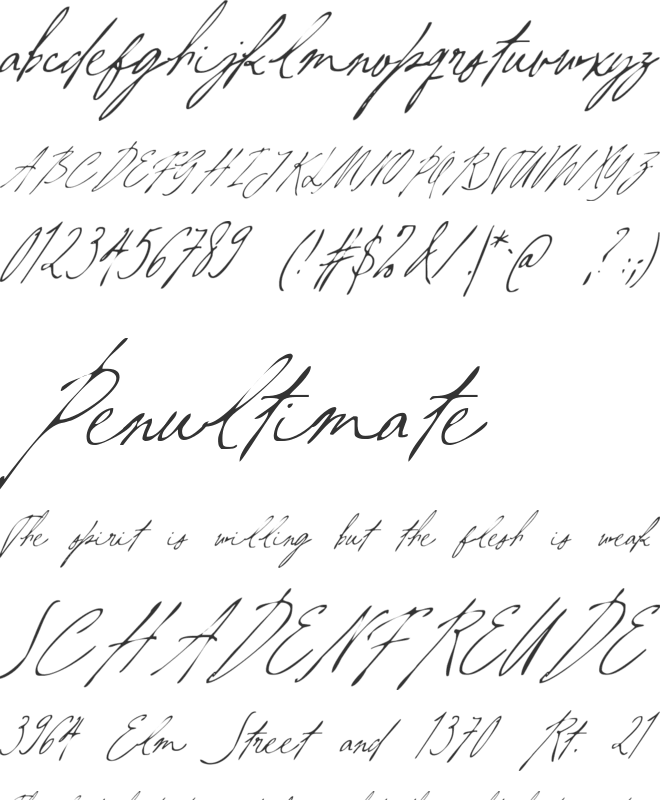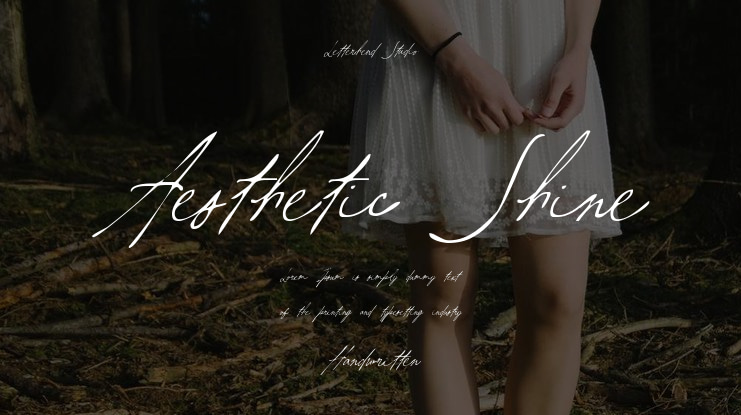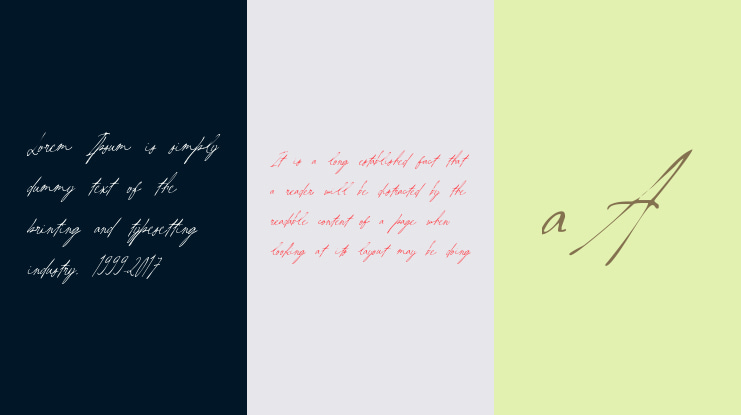
Aesthetic Shine Font Family
Letterhend Studio
Aesthetic Shine feels like handwriting captured in a quiet, beautiful moment—slender, flowing, and naturally expressive with a touch of raw romance. Its sweeping capitals, irregular strokes, and delicate rhythm create an intimate look that sits somewhere between elegant calligraphy and effortless handwritten notes.
by Letterhend Studio